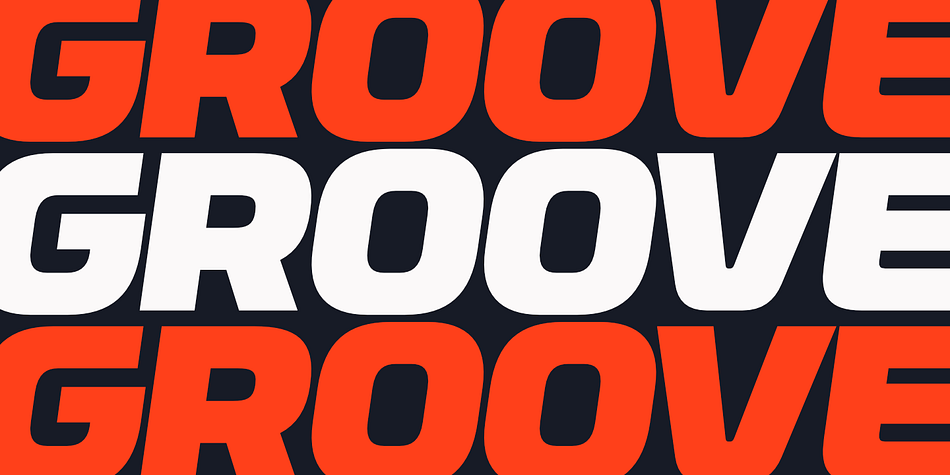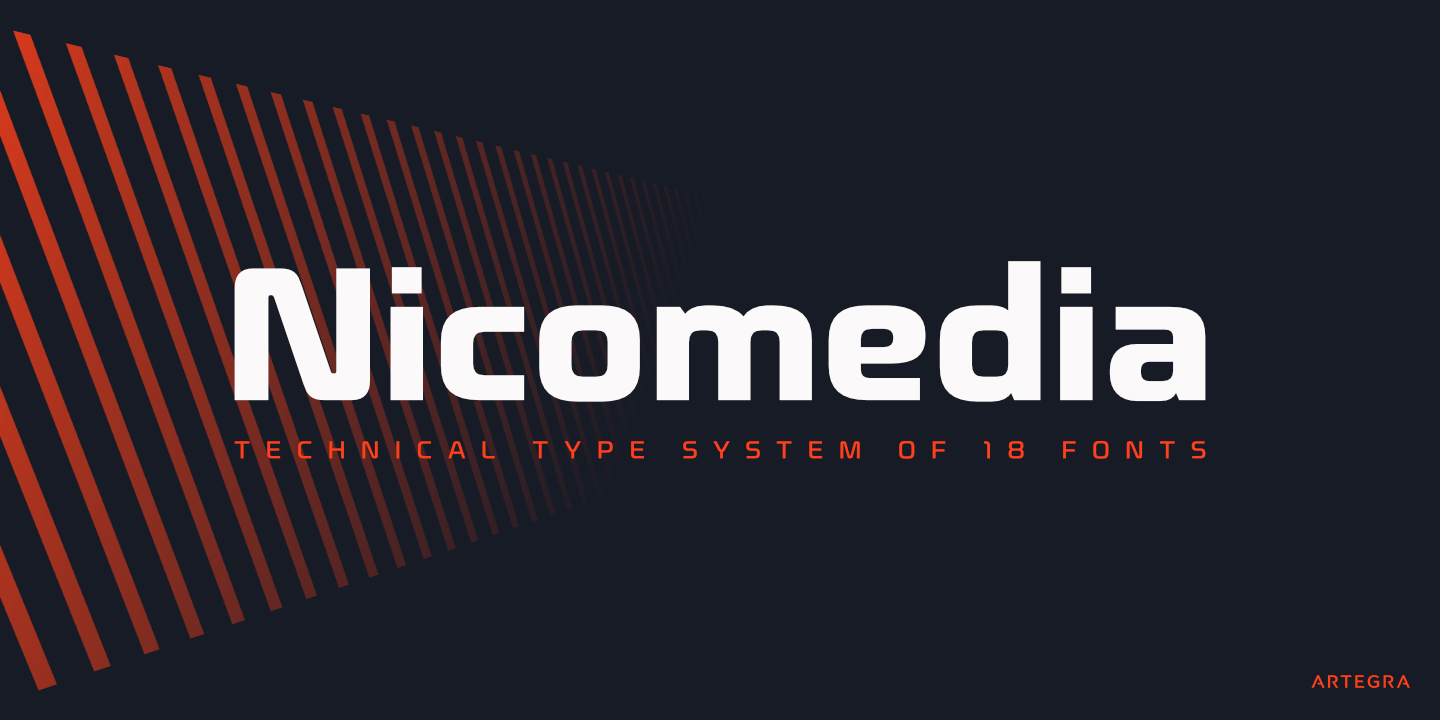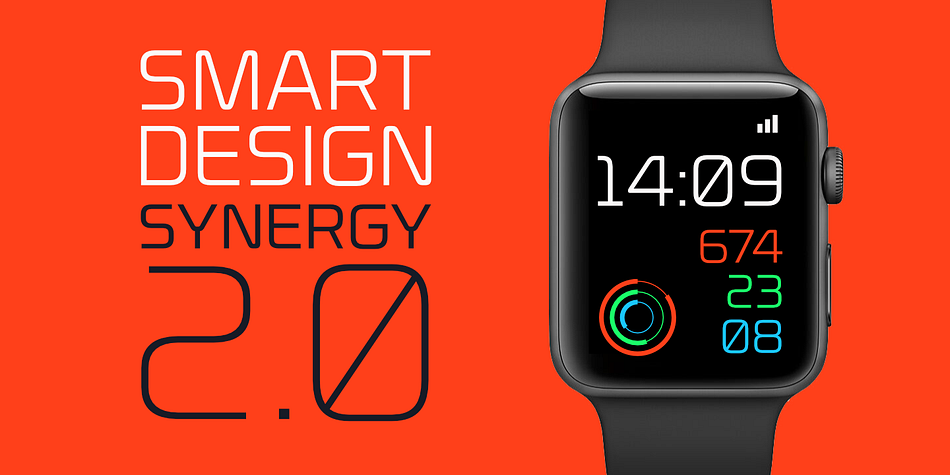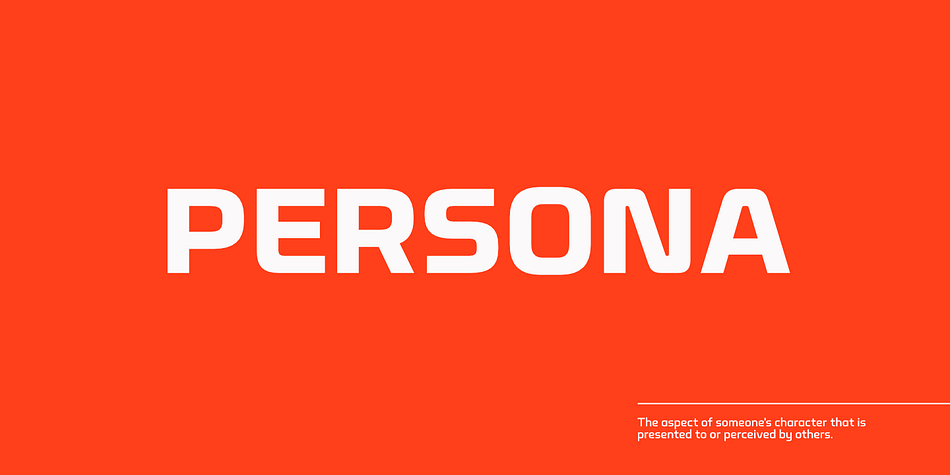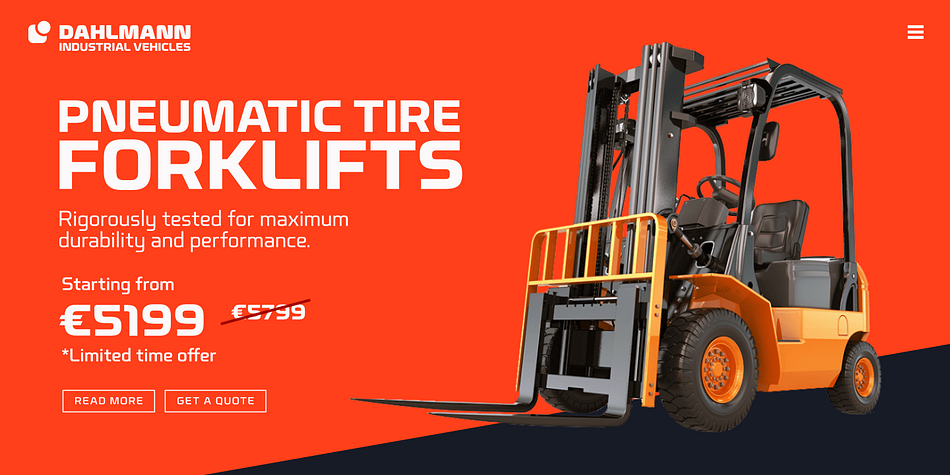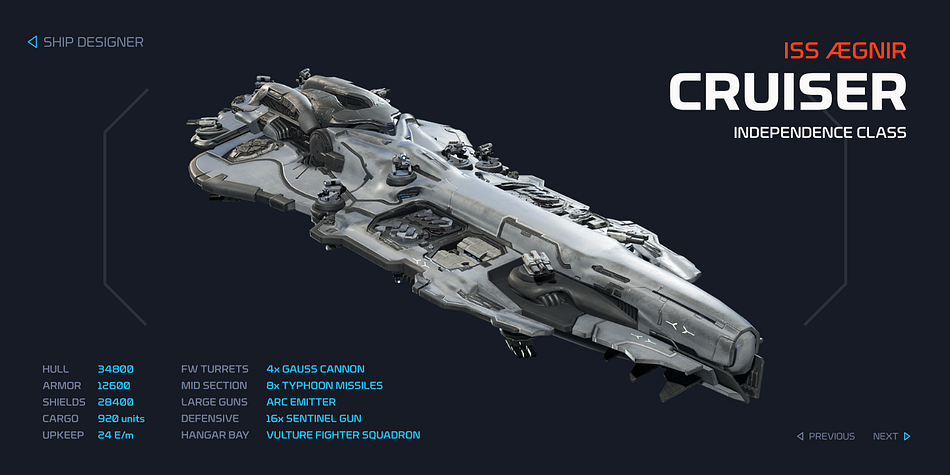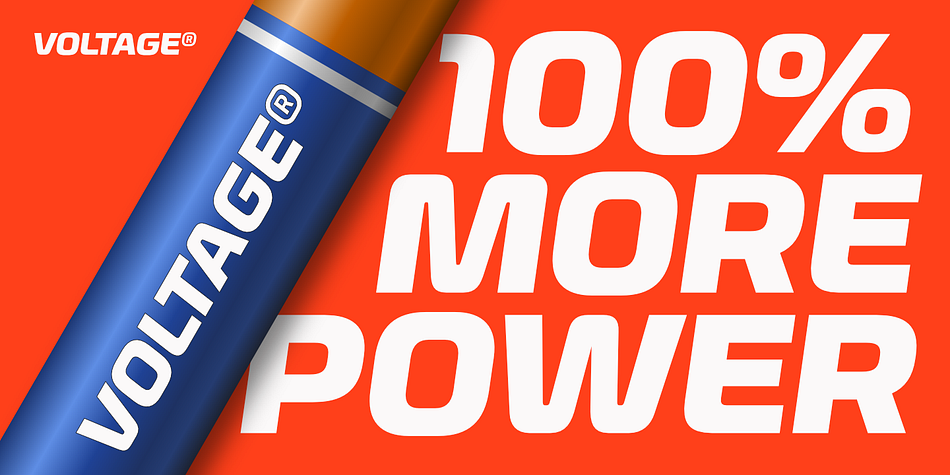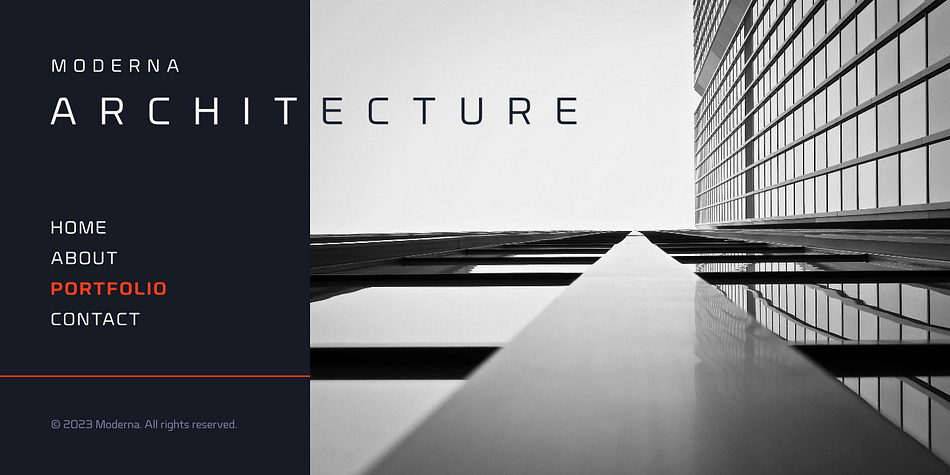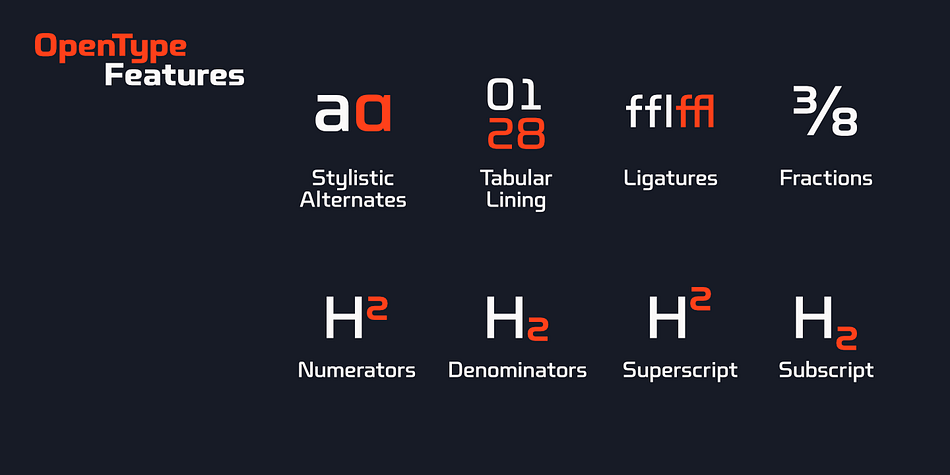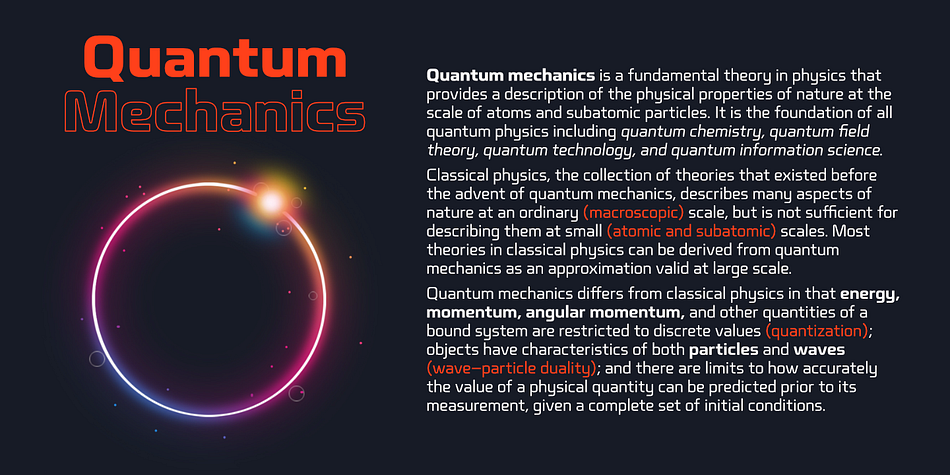
Nicomedia
Designed by Ceyhun Birinci, Nicomedia is a display sans and sans serif font family. This typeface has eighteen styles and was published by Artegra.
Nicomedia is a modern sans serif type family with a contemporary, technical look that reflects the high-tech industrial age that we’re living in. From thin to black, it contains 18 fonts in 9 weights with their true italic counterparts. With 529 glyphs, it offers support for all the languages with Latin script. When it comes to OpenType features it has stylistic alternates (for a, g, l, 0, 1), tabular lining, ligatures, superscript, subscript, denominators, numerators and fractions. It’s perfect to create engaging brands, ads, websites, apps, animations and user interfaces.